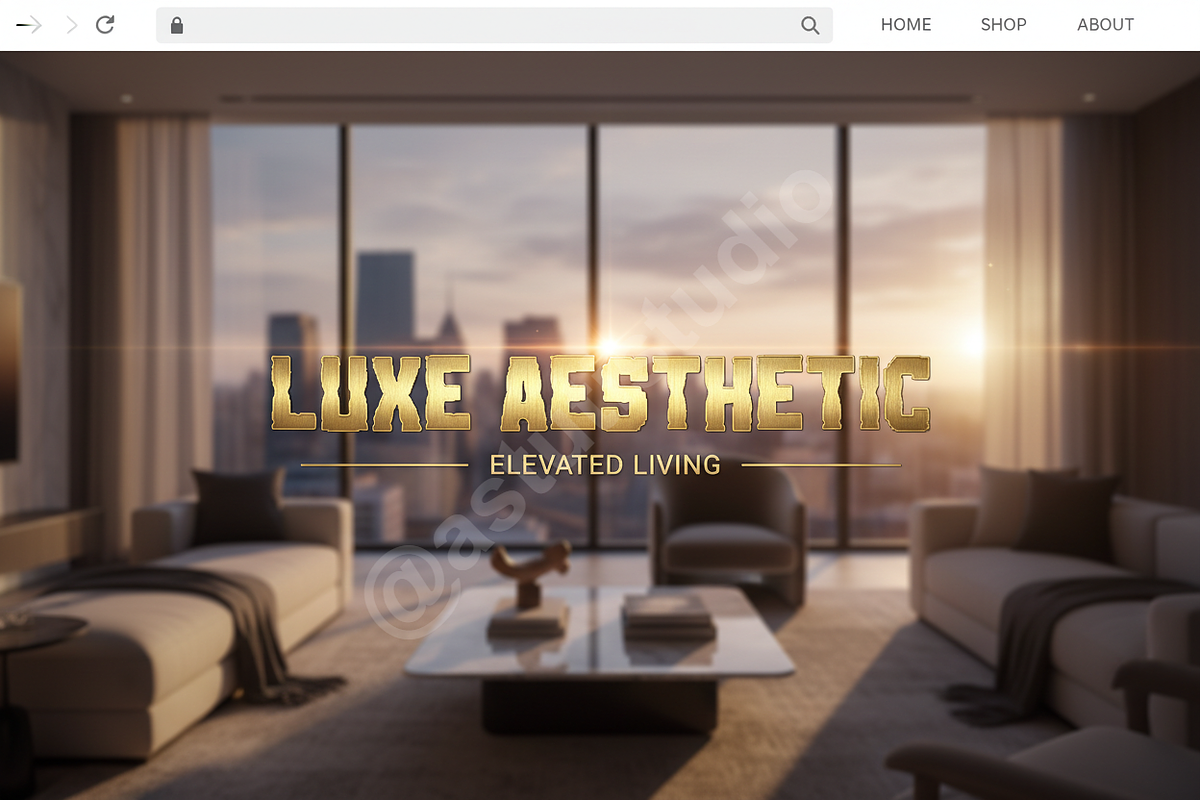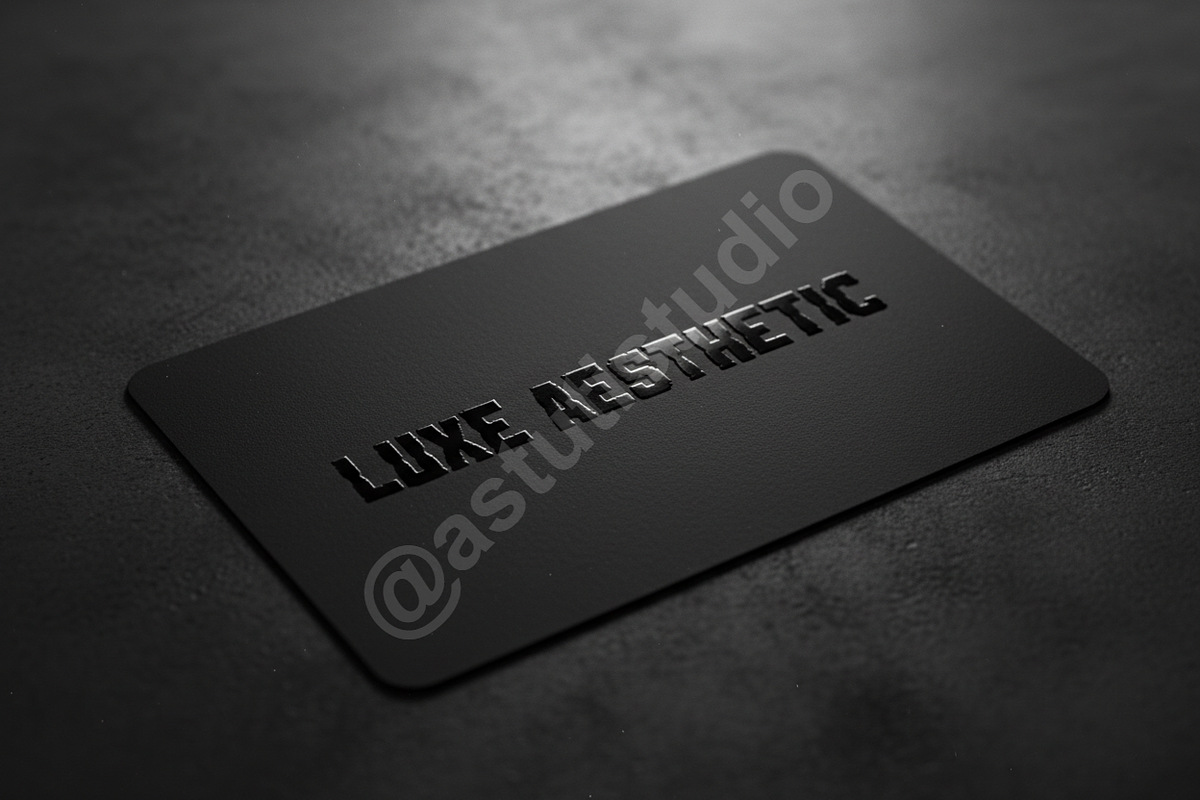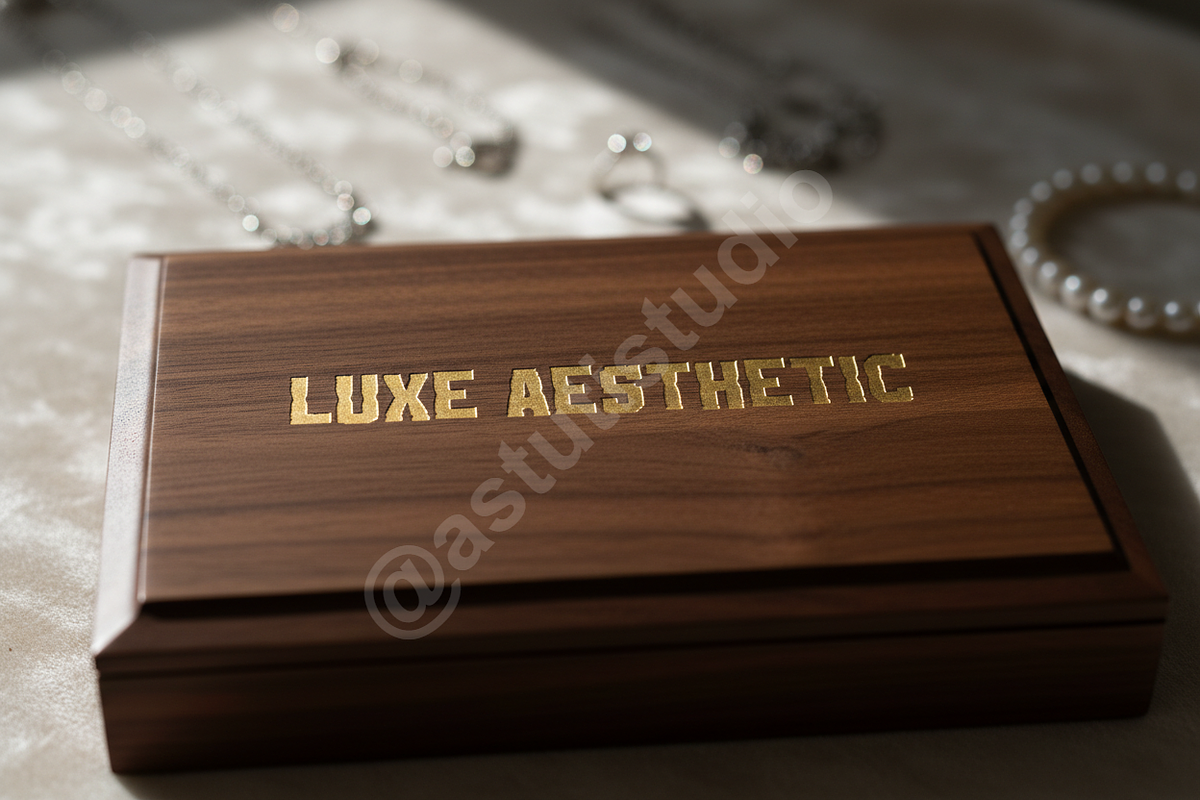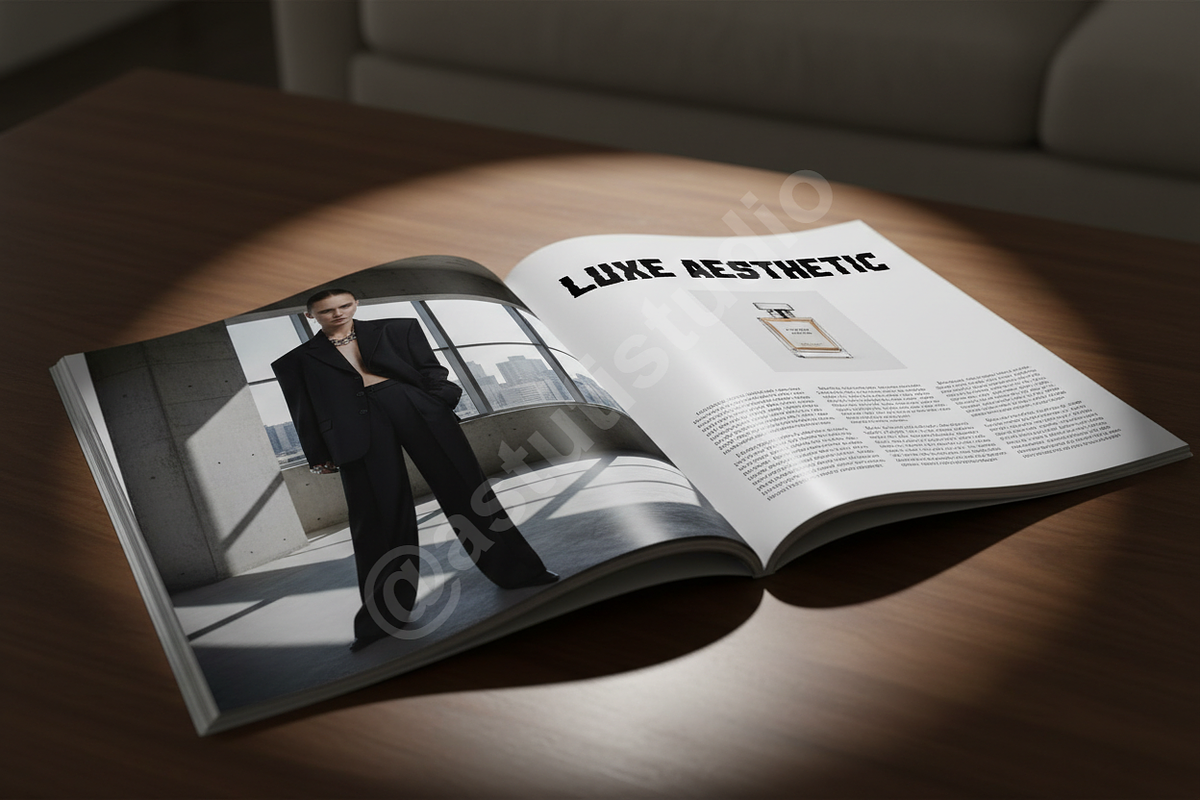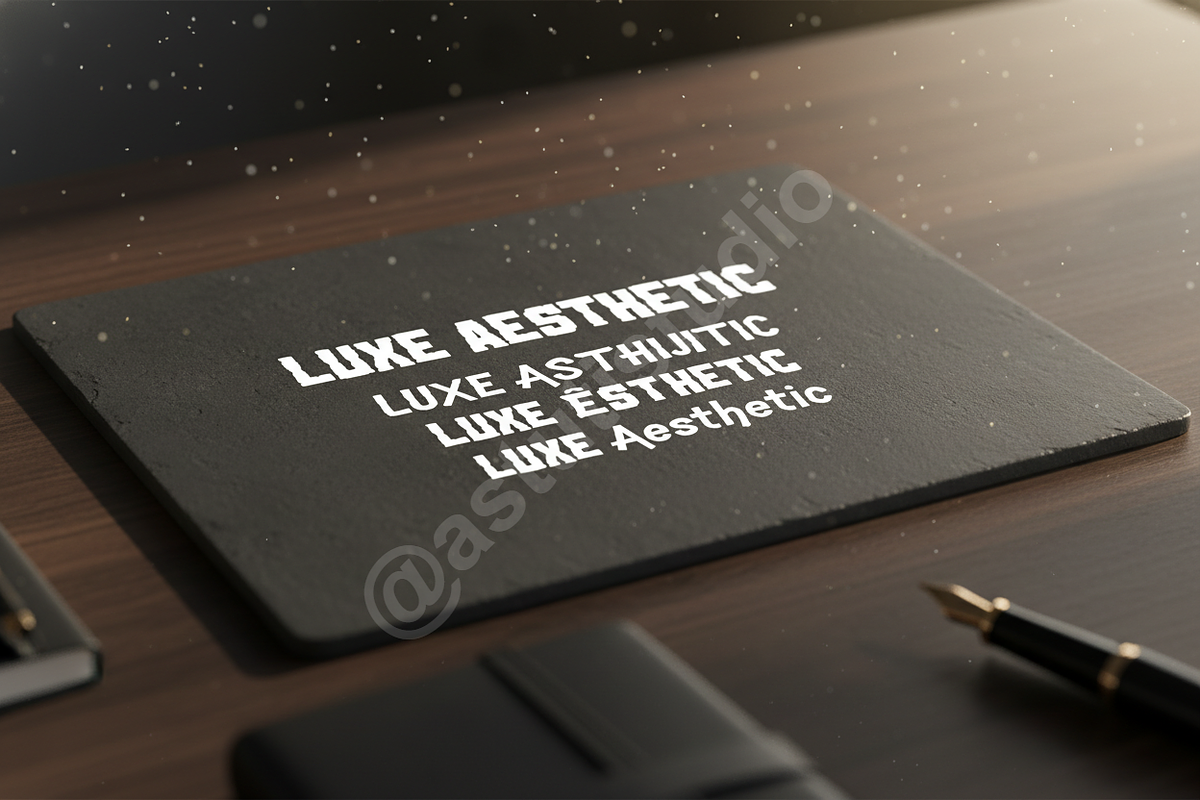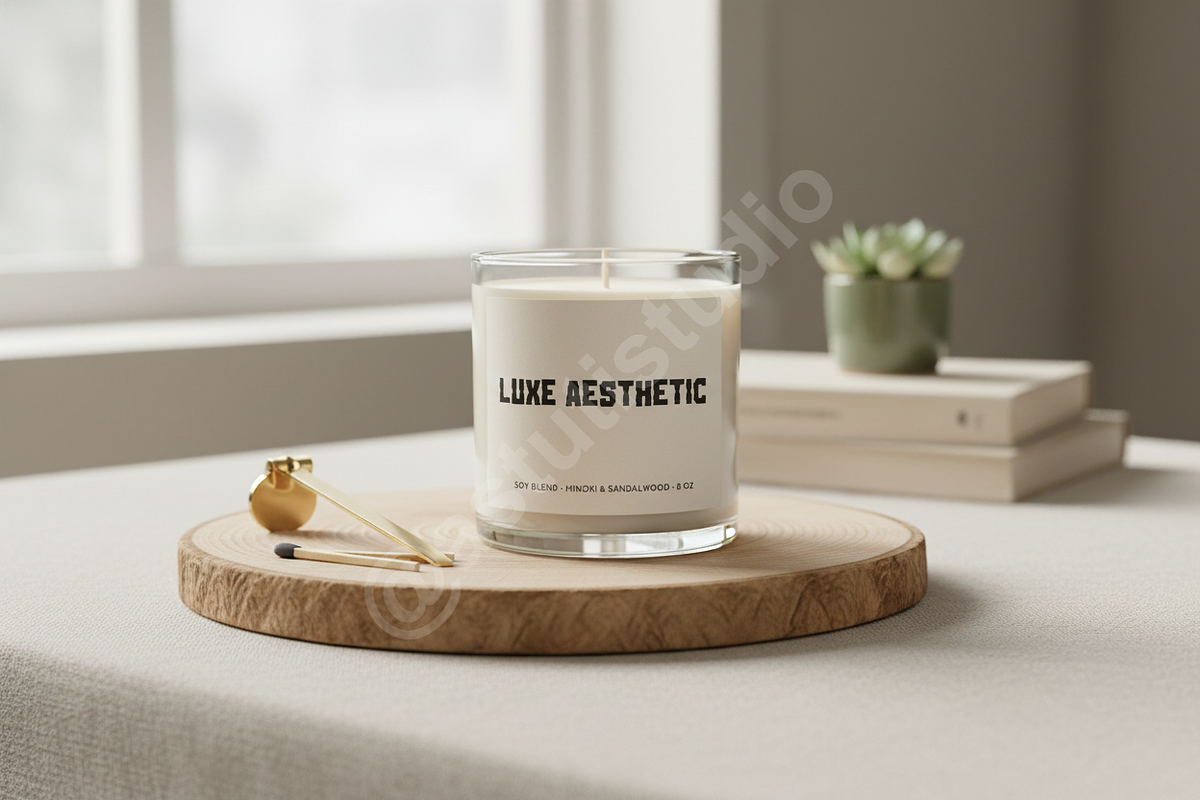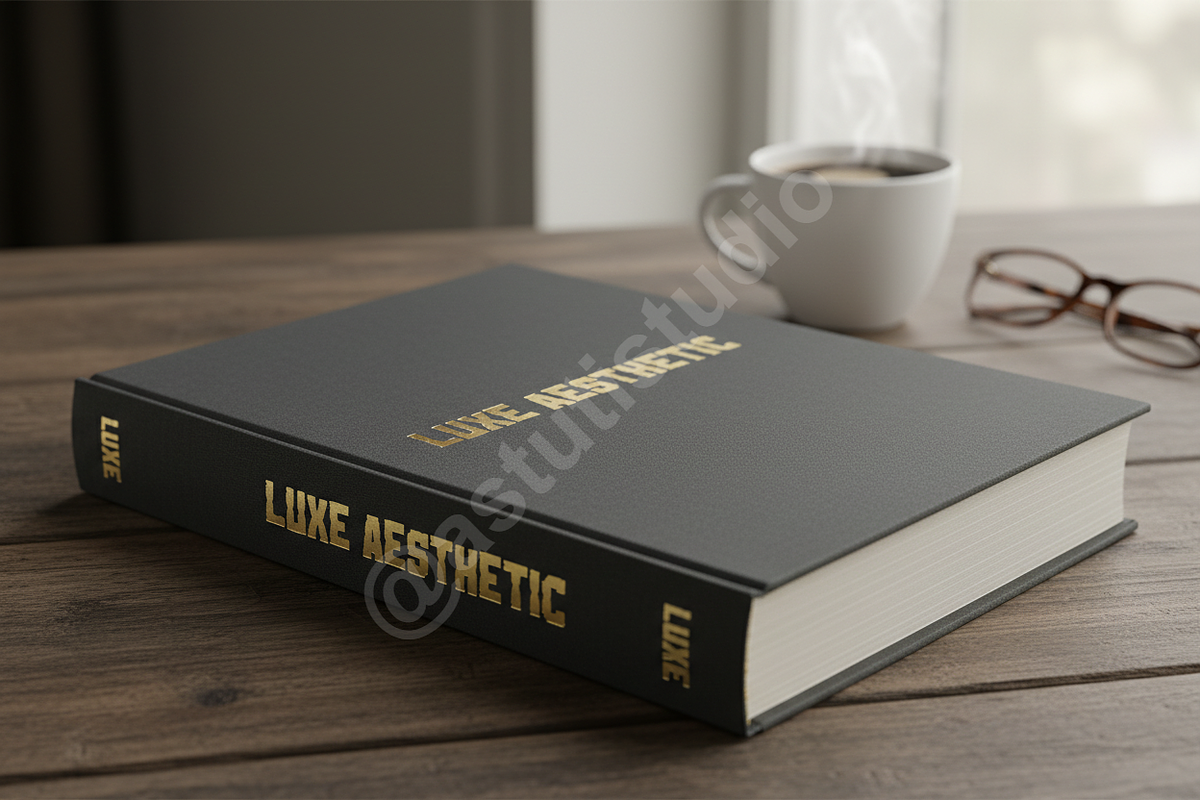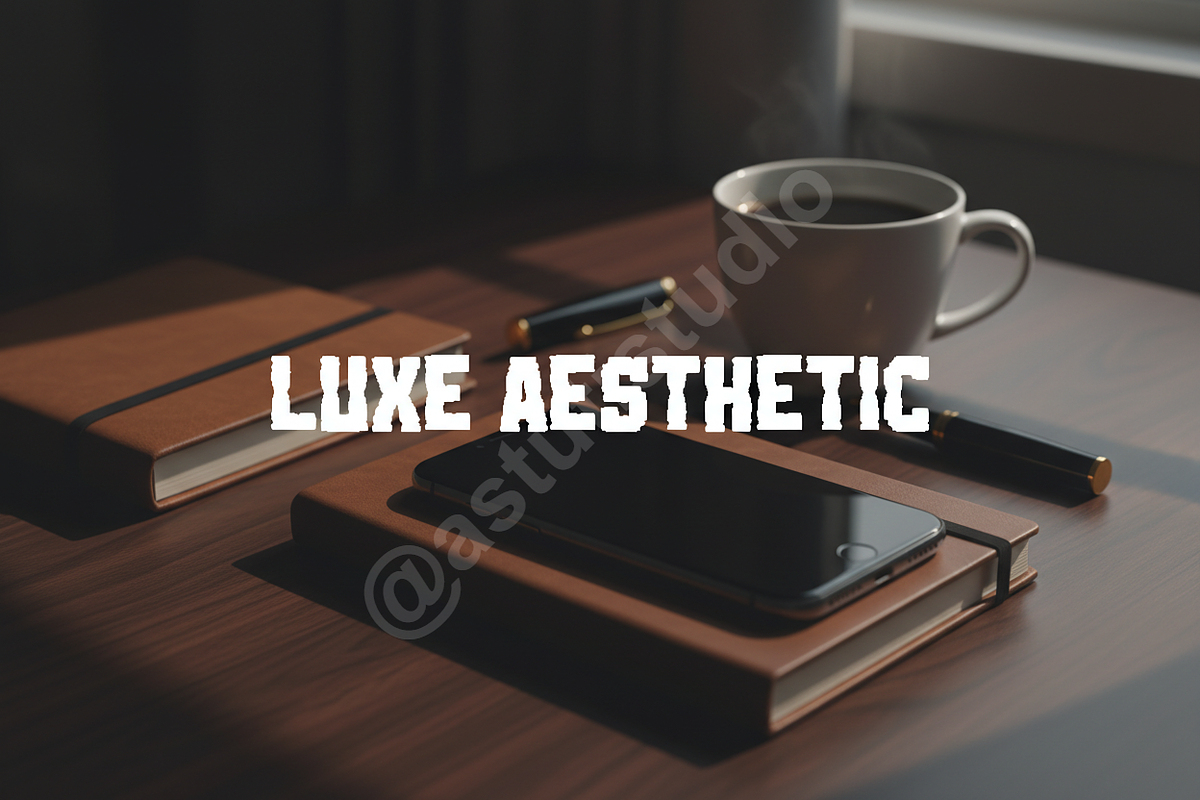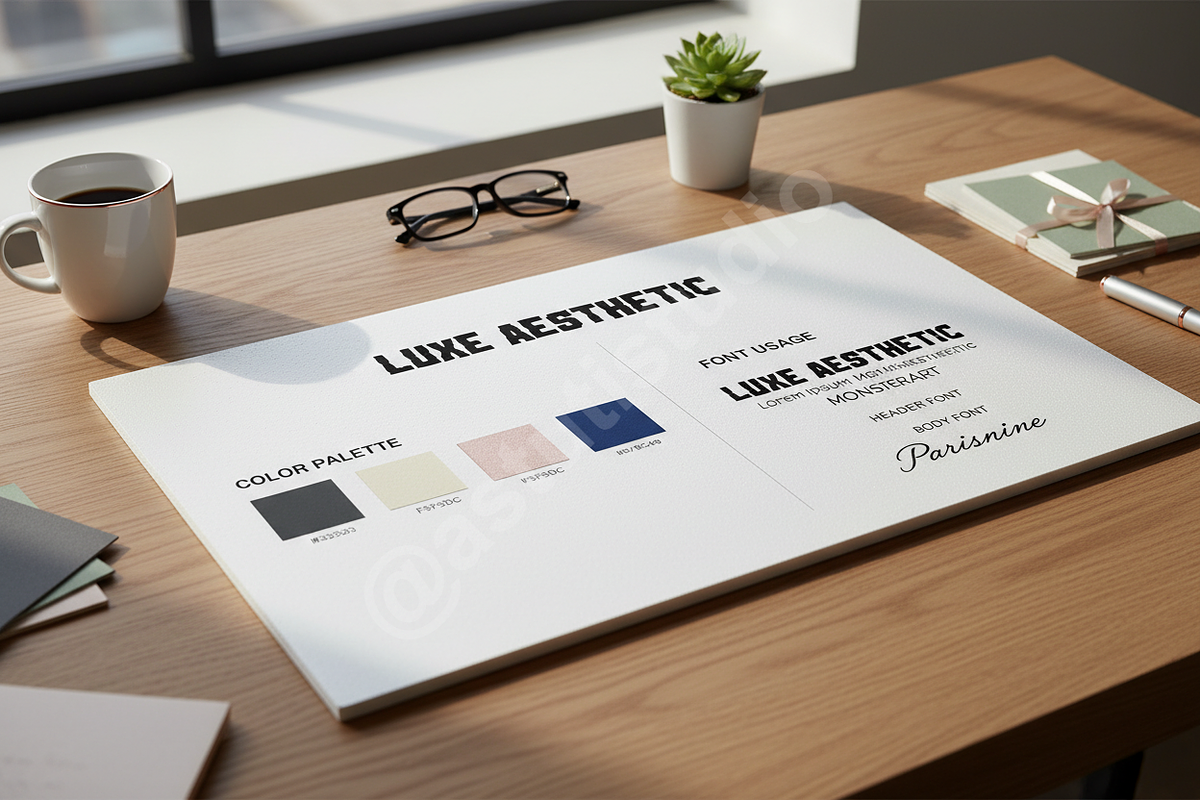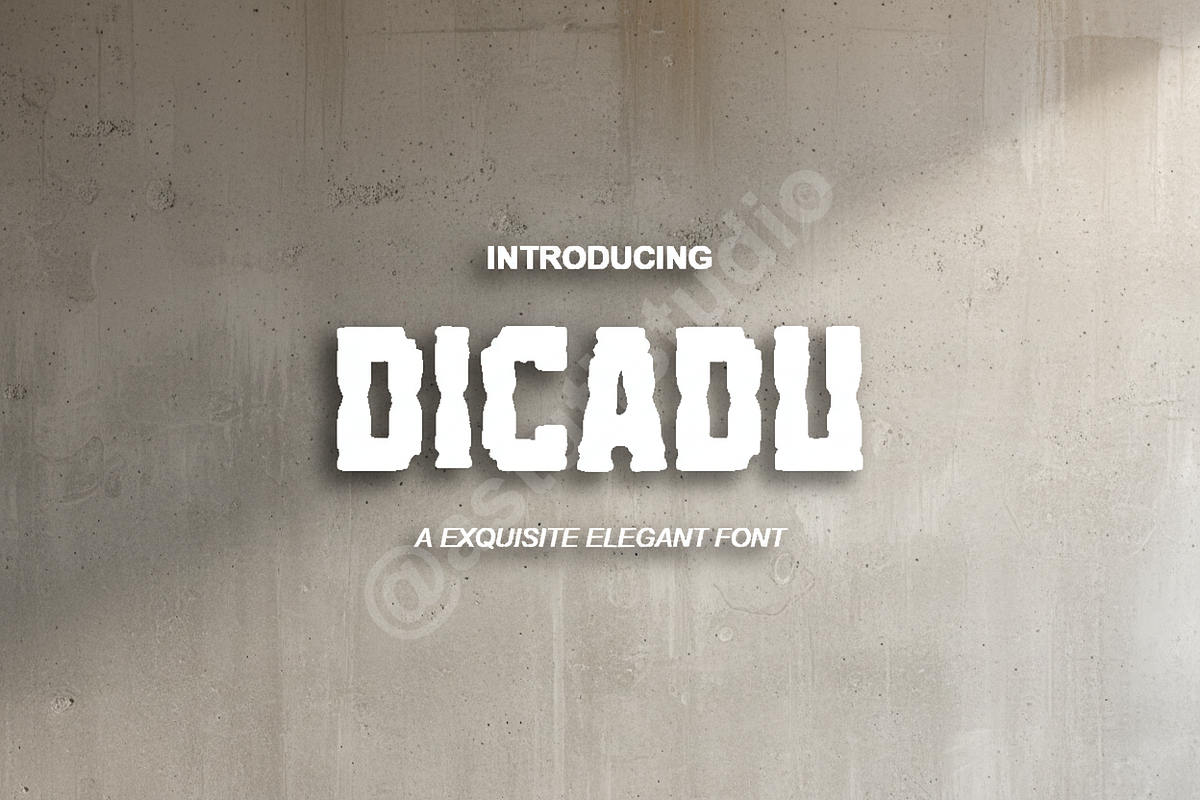
Dicadu | Elegant Modern Serif Typefa
Introducing Dicadu, a refined serif typeface meticulously crafted for projects demanding sophistication and timeless style. Dicadu balances classic structure with subtly contemporary curves, making it the definitive choice for premium visual identity systems. It speaks the language of heritage luxury while remaining perfectly optimized for today's digital landscape.
Key Features of Dicadu:
- Optimized for Luxury Branding: Ideal for high-end packaging, sophisticated logotypes, and exclusive invitations.
- Editorial Precision: Features excellent readability and balanced spacing, perfect for magazine layouts, annual reports, and digital publications.
- Extensive OpenType Features: Includes stylistic alternates and discretionary ligatures for custom, bespoke typographic lockups.
- Full Multi-Language Support: Supports a wide range of Western European languages.
- Social Media Ready: Delivers striking headlines that command attention on platforms like Instagram and Pinterest.